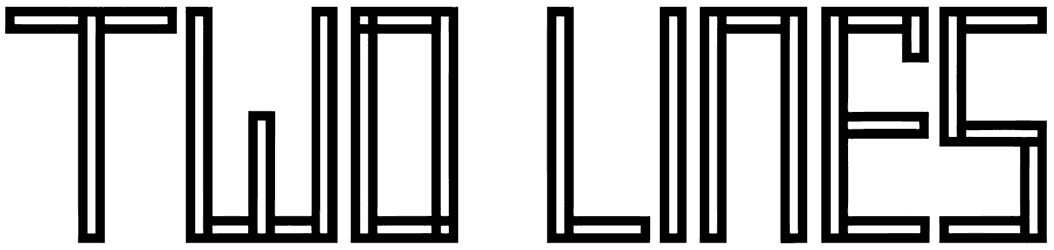
Two Lines Font
If you are looking for an impressive outward for a logo or wordmark design, we have a good suggestion for you, Two Lines. Imagine what other projects, like covers, flyers, and more, you can design with a minimal outline font. This double line font, drawn up with two parallel lines, doesn’t include lowercase, numerals, or punctuation, but you can still apply it with your creativity.